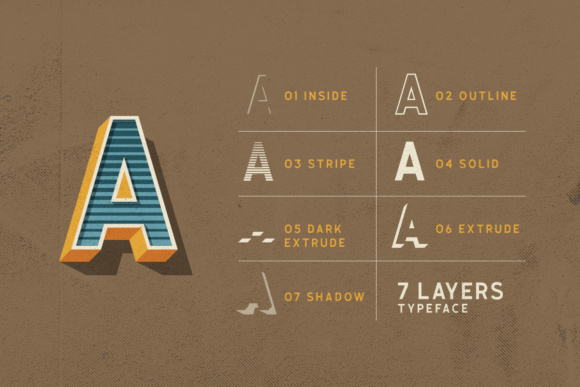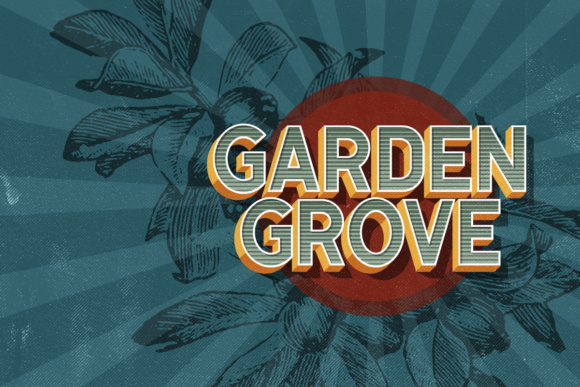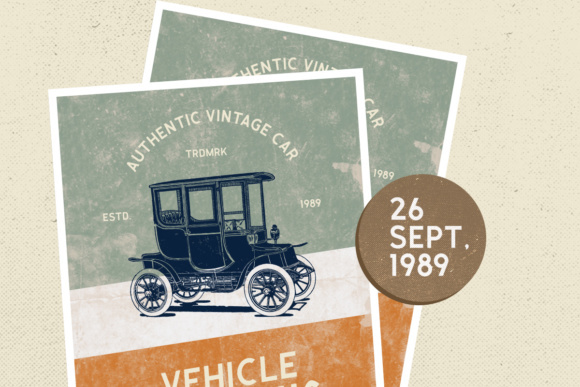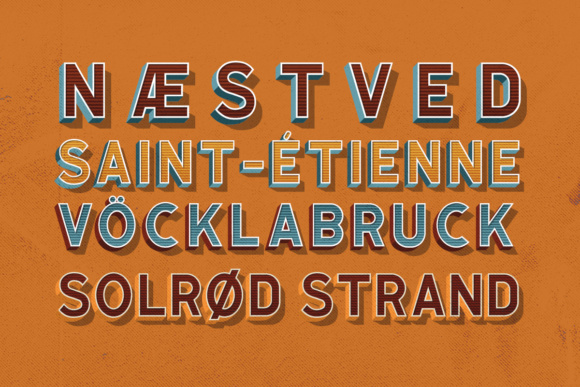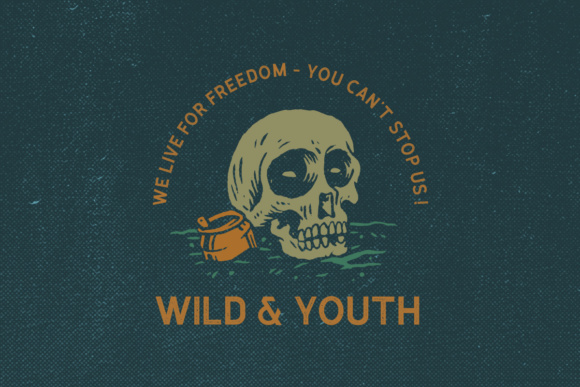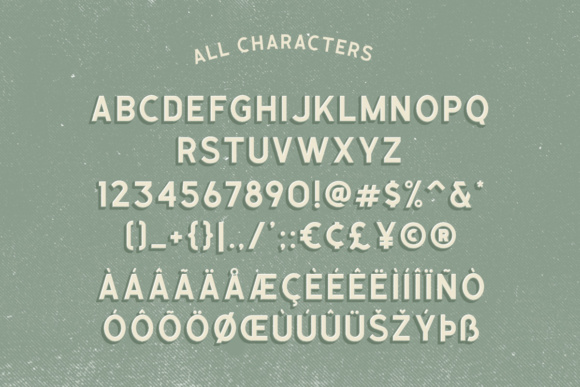
Introducing Calasans Font: Elevate Your Designs with 3D Typography
In the realm of graphic design, typography plays a pivotal role in capturing the essence of a message. Among the myriad of fonts available, the Calasans Font stands out as a versatile and dynamic sans serif font, offering 7 layered styles that empower designers to create stunning 3D effects without the need for additional software or plugins. This innovative font is perfect for crafting vintage posters, 3D types, and any retro design that demands attention and creativity.
The Power of Calasans Font
Calasans Font is not just another typeface; it’s a tool that unlocks new dimensions of creativity. Its 7 layered styles are meticulously designed to allow for seamless stacking, enabling designers to achieve a 3D look with ease. This feature is particularly beneficial for those looking to add depth and texture to their work without complicating the design process.
One of the key advantages of Calasans Font is its versatility. Whether you’re working on a vintage poster that requires a nostalgic feel, a 3D type that needs to pop, or any retro design that demands a unique touch, Calasans Font is up to the task. Its sans serif design ensures clarity and readability, making it suitable for a wide range of applications, from digital media to print.
Applications of Calasans Font
The potential applications of Calasans Font are vast and varied. Here are a few ideas to get you started:
- Vintage Posters: Create eye-catching posters with a retro vibe by layering different styles of Calasans Font. The 3D effect adds a captivating element that draws viewers in.
- 3D Types: Experiment with different layering techniques to achieve unique 3D typographic effects. This can be particularly effective for headings, titles, and slogans.
- Retro Designs: For any design that aims to evoke a sense of nostalgia, Calasans Font can be a valuable asset. Its retro feel, combined with the ability to create 3D effects, makes it perfect for branding, packaging, and advertising.
Why Choose Calasans Font?
In a market saturated with fonts, Calasans Font distinguishes itself through its unique combination of style, versatility, and functionality. Here are a few reasons why designers and crafters should consider adding Calasans Font to their toolkit:
- Easy to Use: Despite its advanced capabilities, Calasans Font is incredibly easy to use. Designers can achieve professional-looking results without a steep learning curve.
- Time-Saving: The ability to create 3D effects without additional software or plugins streamlines the design process, allowing for quicker turnaround times.
- Customization: With 7 layered styles at your disposal, the possibilities for customization are endless. This ensures that your designs can be tailored to fit your specific needs and preferences.
- Apply to Your Design: Whether you’re working on a digital project or a print design, apply Calasans Font in a way that complements your overall aesthetic. Don’t be afraid to push the boundaries of what’s possible with the font.
Calasans Font is more than just a typeface; it’s a creative tool that opens up new possibilities for designers and crafters. Its 7 layered styles offer a straightforward path to achieving 3D typographic effects, making it an invaluable asset for anyone looking to add depth and interest to their designs. Whether you’re creating vintage posters, 3D types, or retro designs, Calasans Font provides the flexibility and functionality needed to bring your vision to life. So, dive in and discover the creative potential of Calasans Font for yourself.